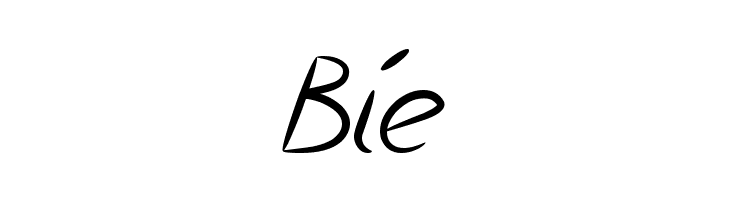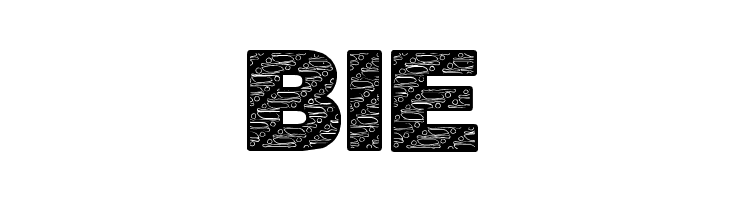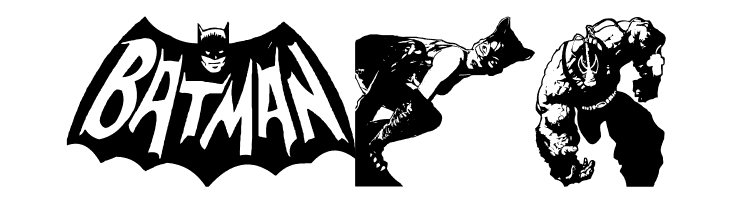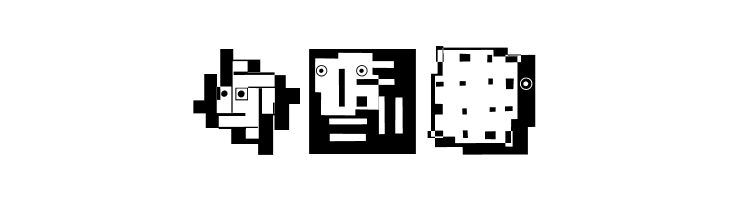
A bold, playful font with chunky, geometric letters.
A modern sans-serif typeface with clean lines and balanced proportions.
A playful, handwritten font with a bold and lively style.
A bold, expressive script font with fluid, interconnected strokes.
A flowing, cursive font with elegant, interconnected characters.
A modern, rounded sans-serif font with uniform strokes and a friendly appearance.
A playful, bold font with uppercase letters in hand-drawn circles.
A modern font with circular motifs and a sleek, minimalistic design.
A modern, circuit-inspired font with geometric shapes and circular nodes.
A whimsical, decorative font with playful, circus-themed characters enclosed in squares.
A whimsical, bold font with decorative, circus-themed elements.
A dynamic and fluid script font with a modern, elegant style.
Decorative font using cassette tape imagery.
A fluid and elegant script font with dynamic cursive letterforms.
A playful, handwritten script font with elegant curves and high contrast.
A bold, Gothic-inspired font with sharp, angular edges and a vintage feel.
Elaborate decorative flourishes and borders with a classic, vintage feel.
A classic Blackletter font with intricate detailing and dramatic flourishes.
An elegant, ornate script font with flowing, interconnected letters and intricate flourishes.
An elegant script font with intricate swashes and flowing lines.
A classic, elegant font with intricate serifs and a Roman inscription style.
A bold, textured, hand-drawn font with an energetic and artistic style.
A dynamic, handwritten-style font with bold, slanted characters.
A playful, handwritten-style font with consistent strokes and rounded edges.
A bold, italic font with a dynamic and modern style.
A bold, handwritten-style font with smooth curves and an expanded width.
A playful, handwritten-style italic font with smooth curves and consistent strokes.